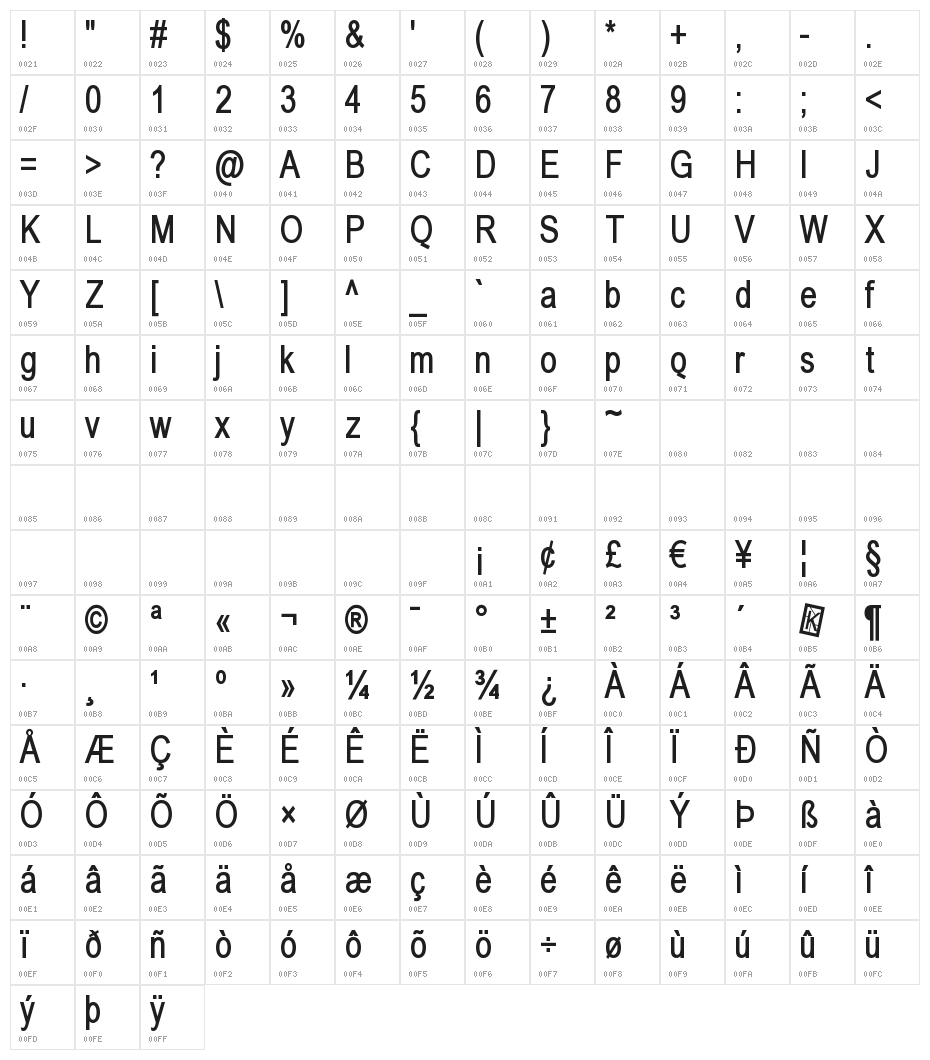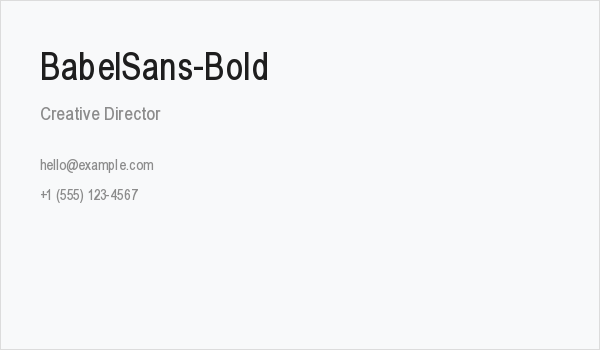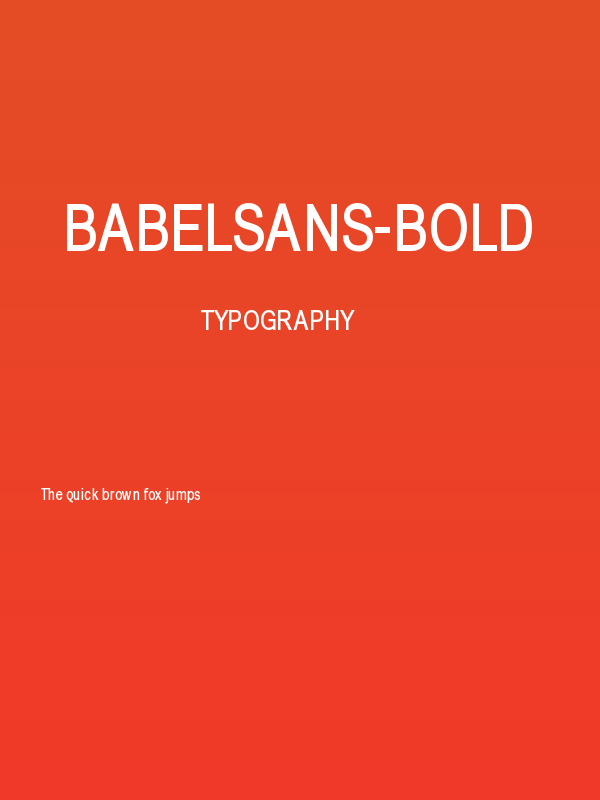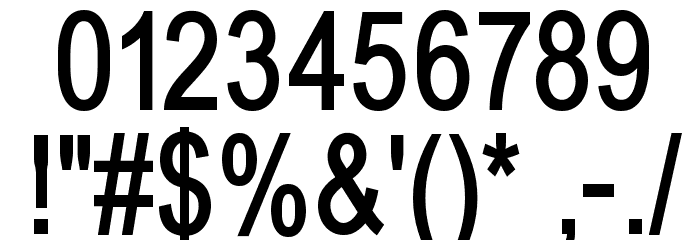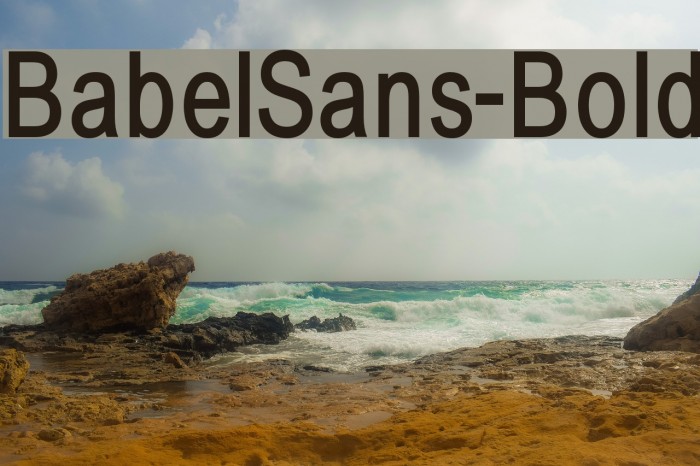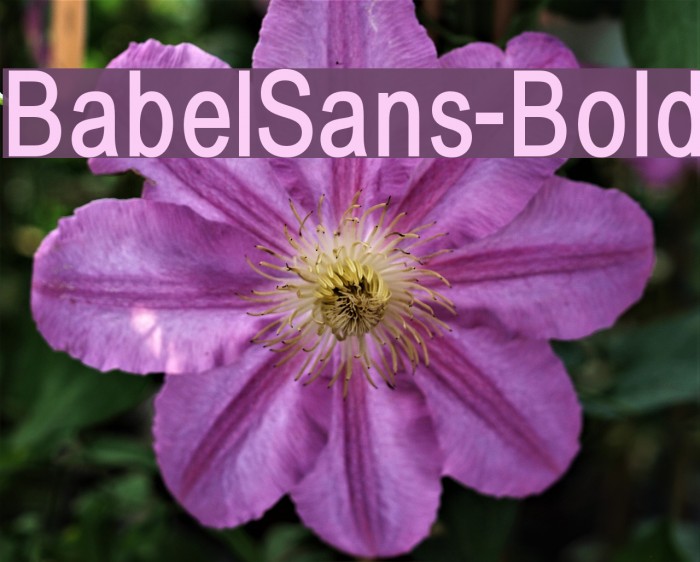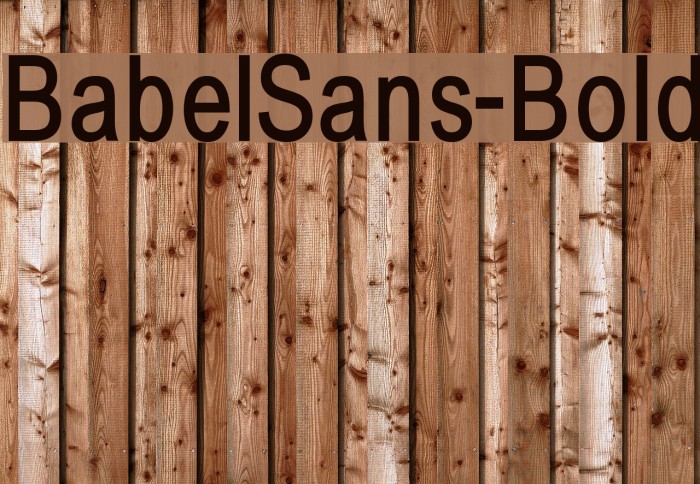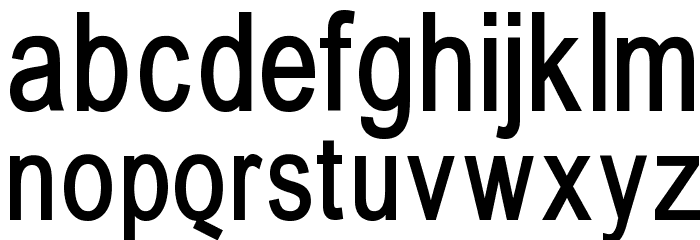
BabelSans-Bold Font
✎ Sans Serif
BabelSans-Bold Description
This font presents a bold and modern sans-serif style, characterized by clean lines and a uniform stroke width. The uppercase and lowercase letters maintain a consistent height and width, providing a balanced and harmonious appearance. The numerals are clear and easily distinguishable, making them suitable for various applications. Special characters are well-defined, enhancing the font's versatility. Its simplicity and clarity make it ideal for digital and print media, ensuring readability across different sizes and formats.
| Use Case | Headlines, Logos, Digital Media |
| Proposed Projects | Ideal for branding, advertising, web design, and editorial projects where clarity and modernity are essential. |